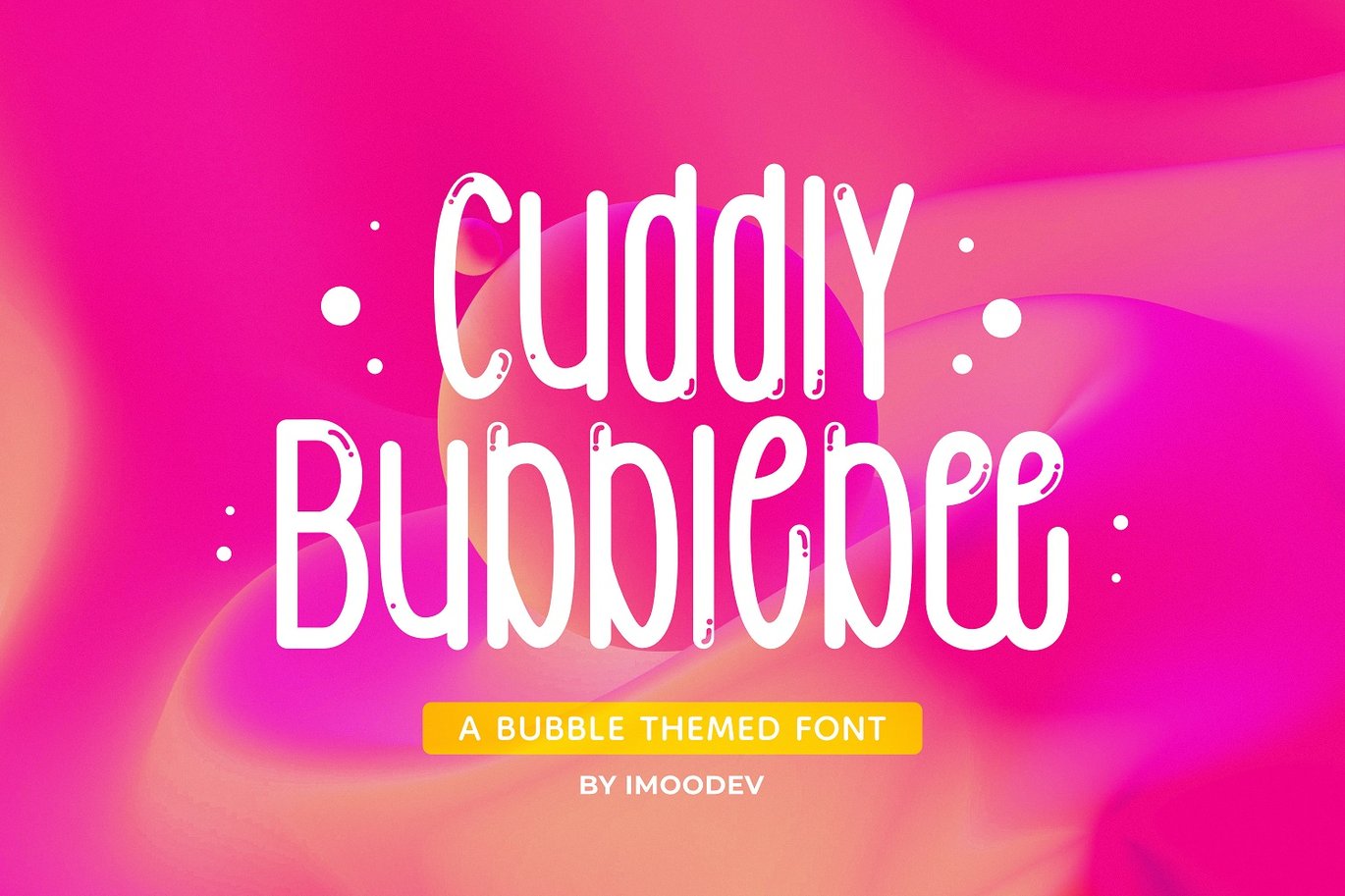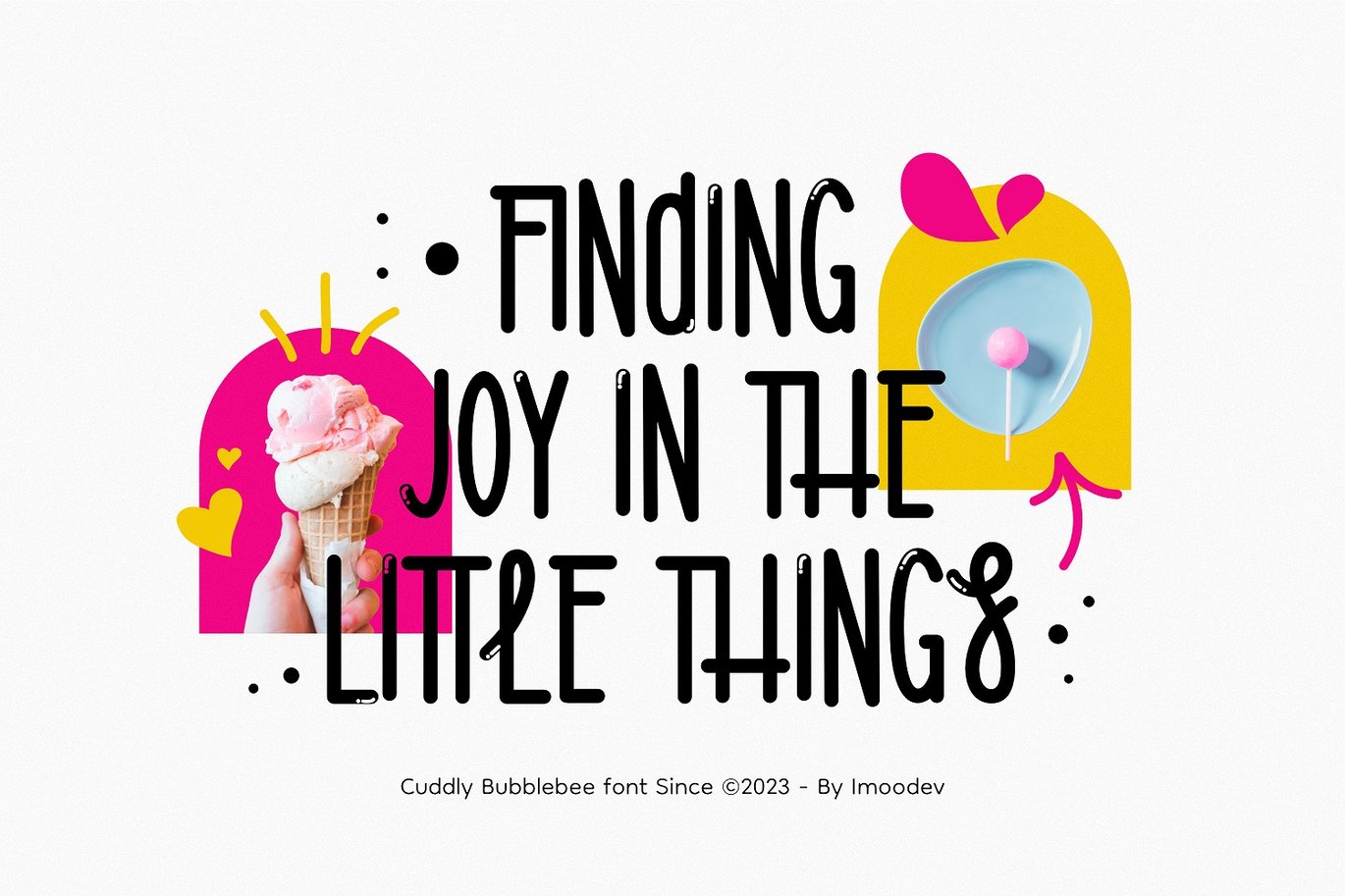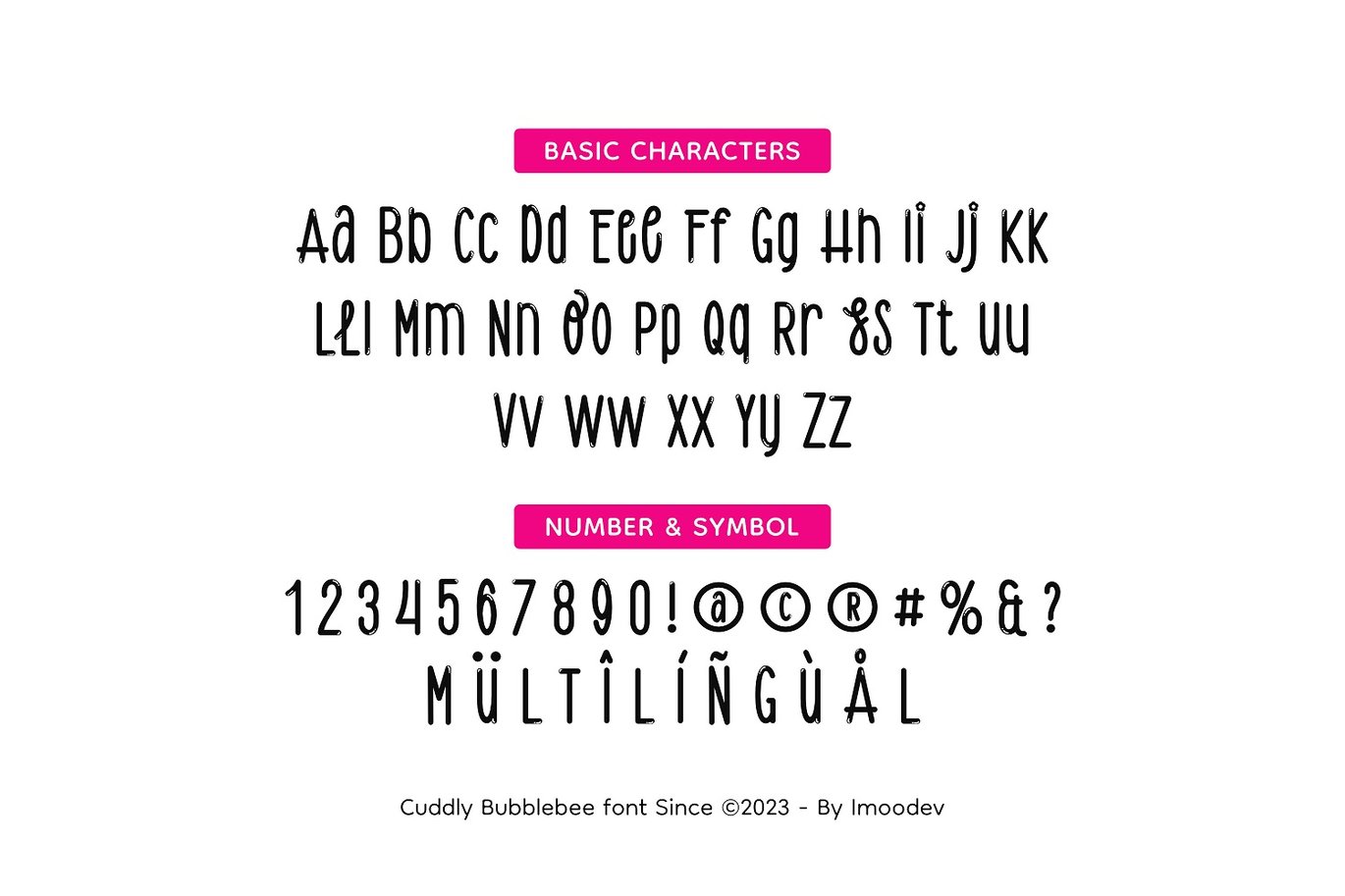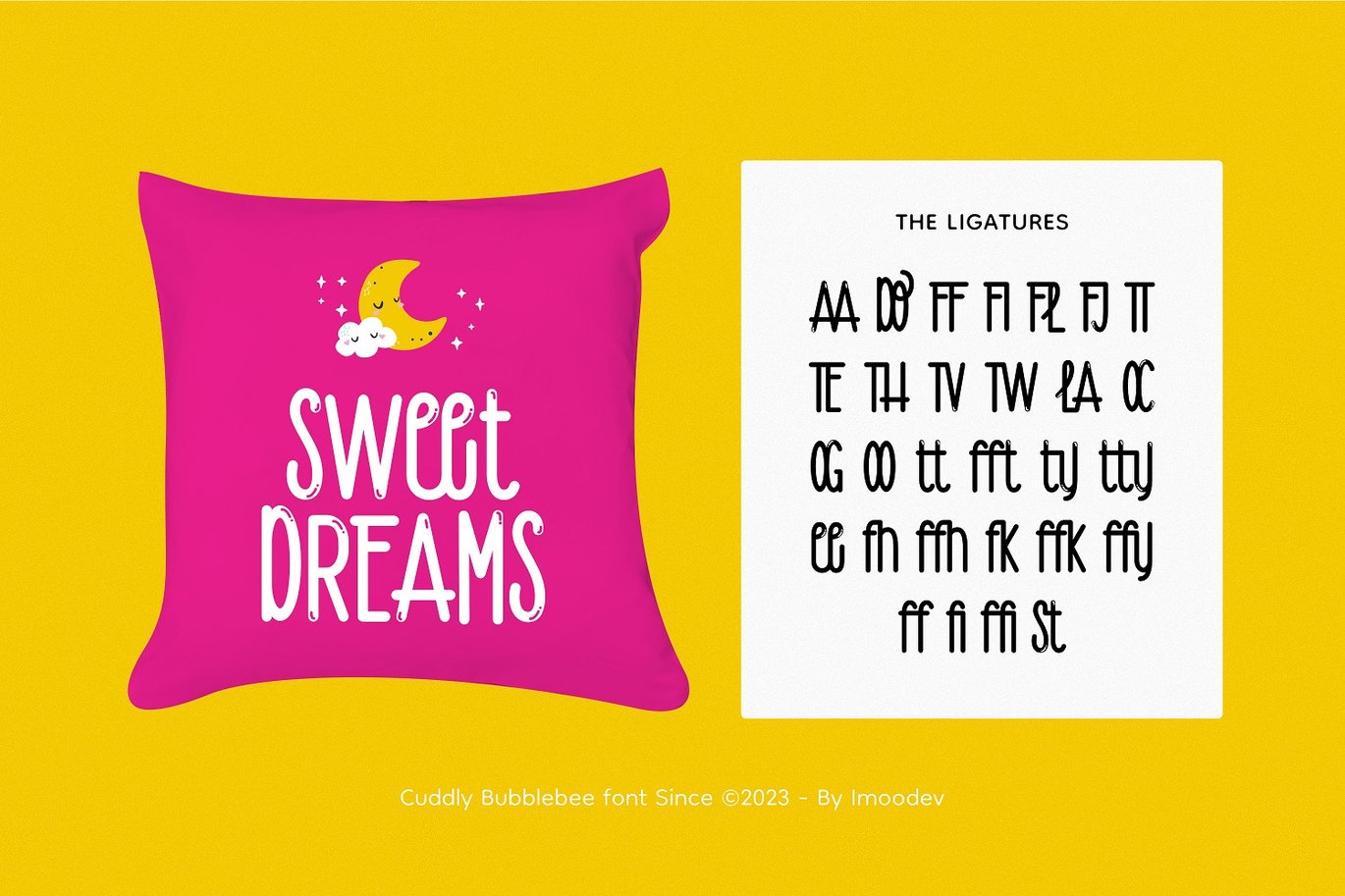
Cuddly Bubblebee – Bubble Font
Cuddly Bubblebee is a bubble font that has smooth curves and a visual style a can embodies charm and elegance in every lettering, making your work look stunning and attractive.
A versatile font that works in both uppercase and lowercase sizes, suitable for a wide variety of projects such as a display font for heading, logo font, invitations, branding, magazine, photography, card, product packaging, product mockup, mug, poster, labels, editorial, art deco, film, movie, and any type of advertising purpose.